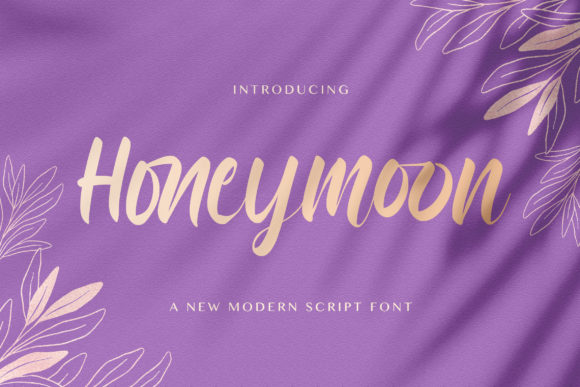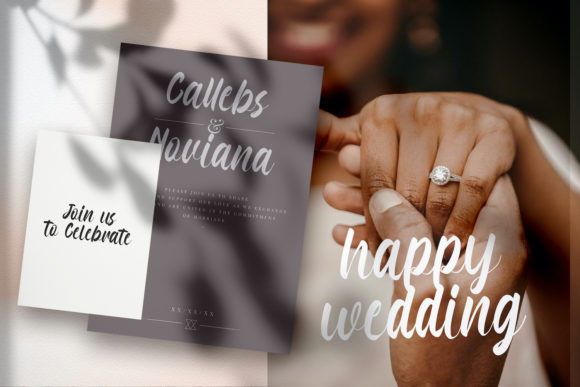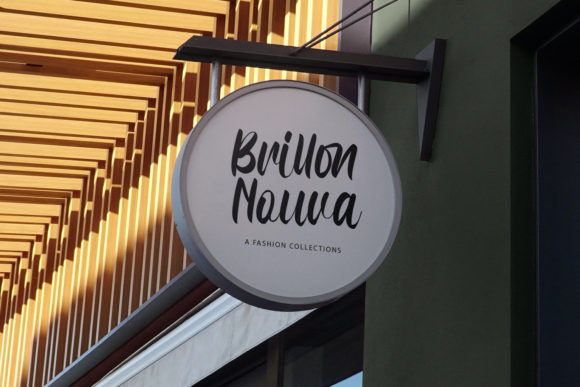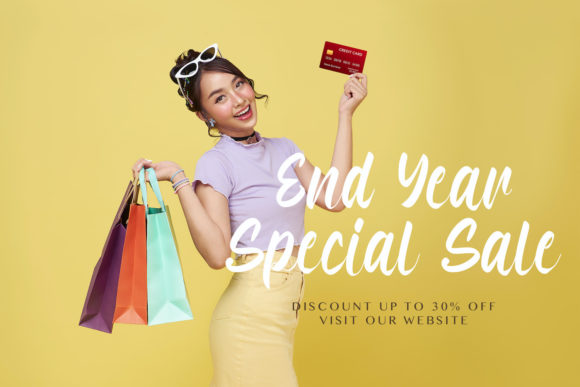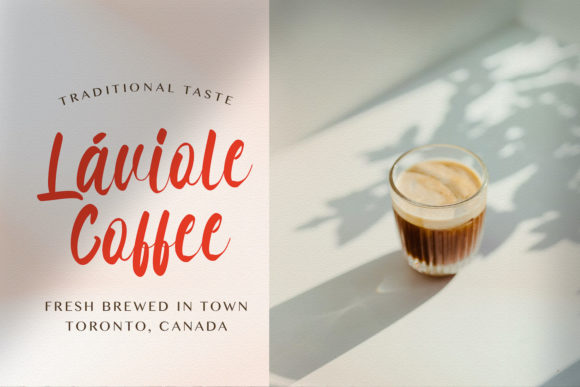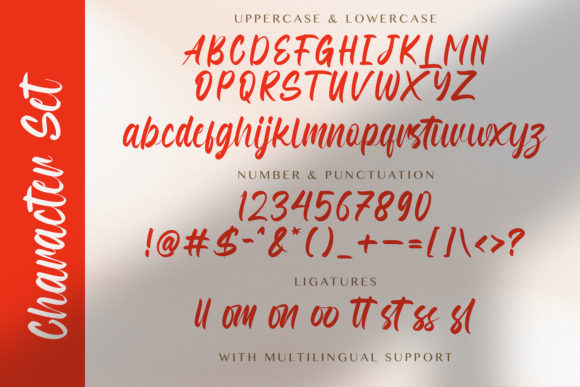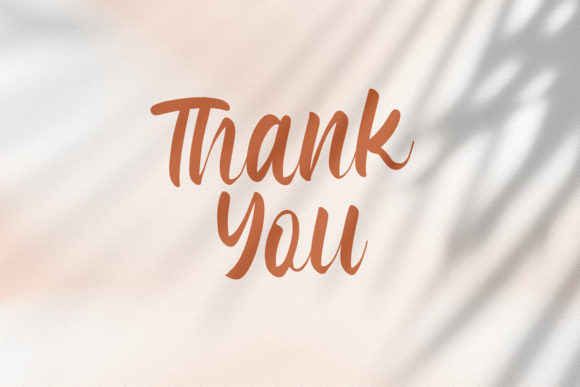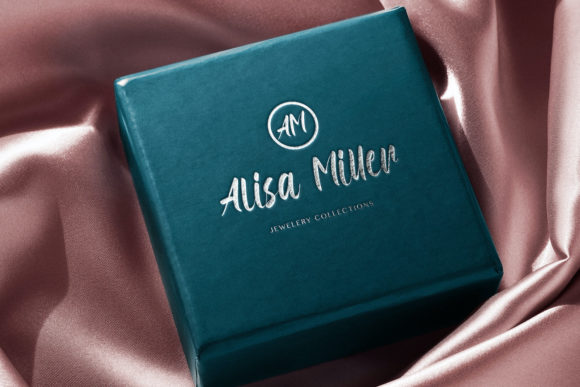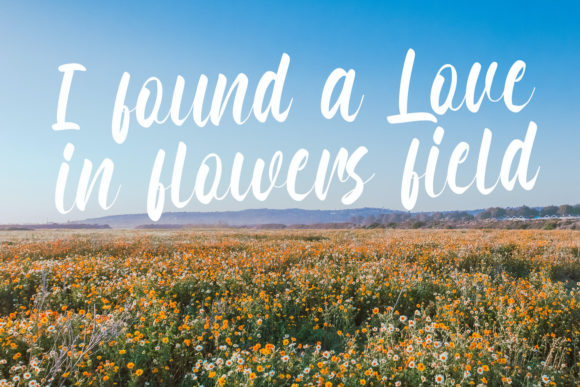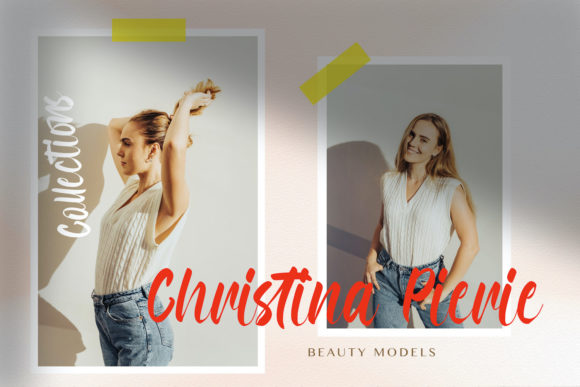
Honeymoon Font
About Honeymoon Font
Honeymoon is a natural lettered and graceful script font. Fall for its ravishing style and use it to create gorgeous wedding invitations, beautiful stationary art, eye-catching social media posts, and much more!